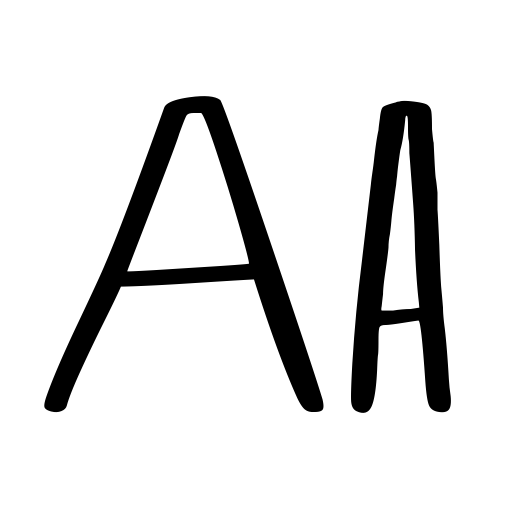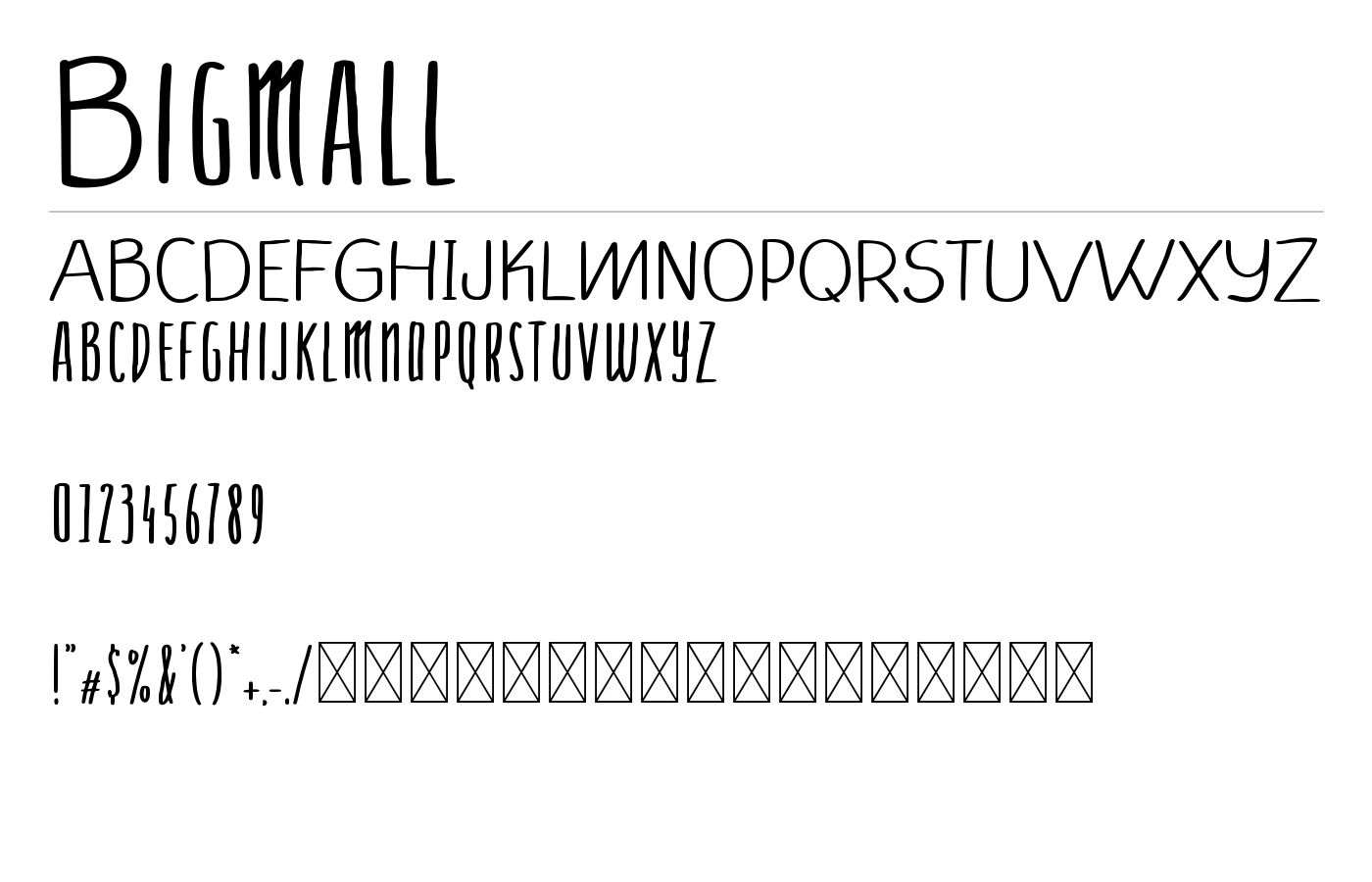
Bigmall is a tall, narrow sans serif font with a friendly and playful hand-drawn style. Its thin strokes, slightly irregular shapes, and condensed letterforms give it a casual yet modern feel, making it ideal for creative branding, posters, and informal editorial designs that need a personal touch. This font works best where a distinctive, approachable look is desired without sacrificing clarity.
Bigmall Font
About Bigmall Font
| Font family | Bigmall Font |
| Designer | Typecoconut |